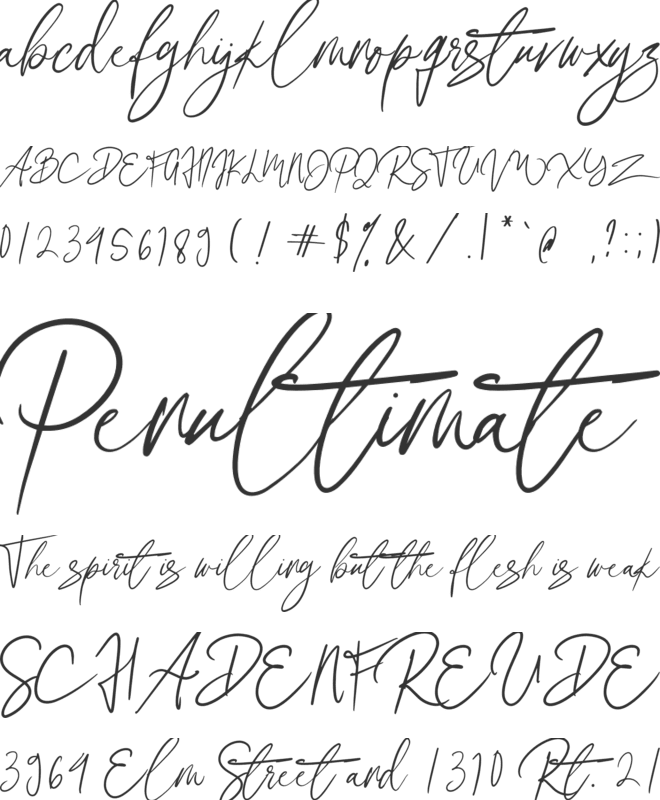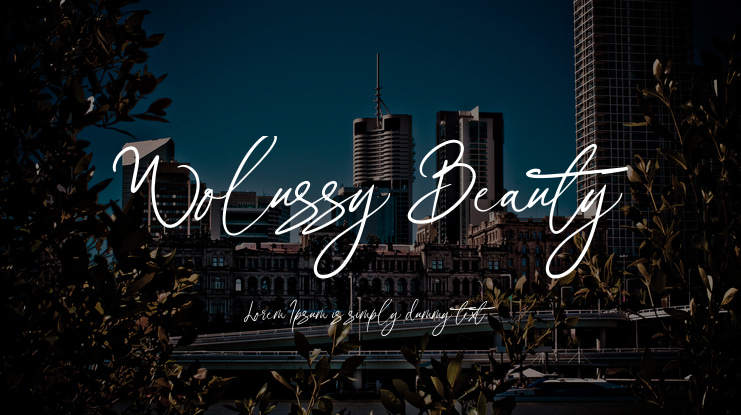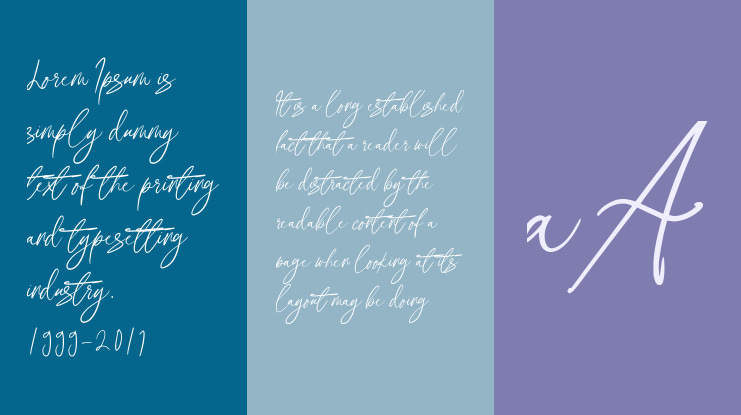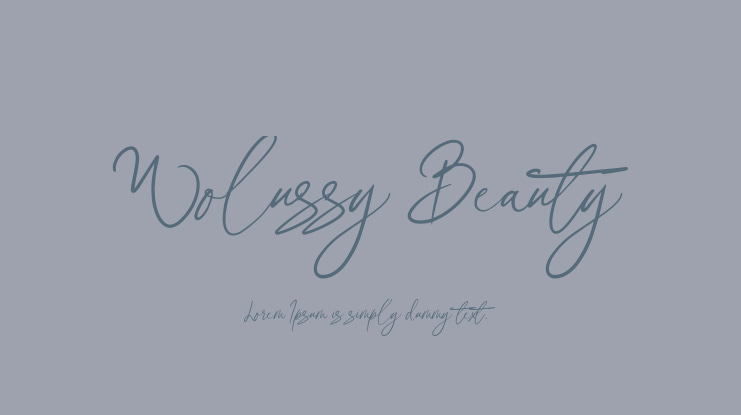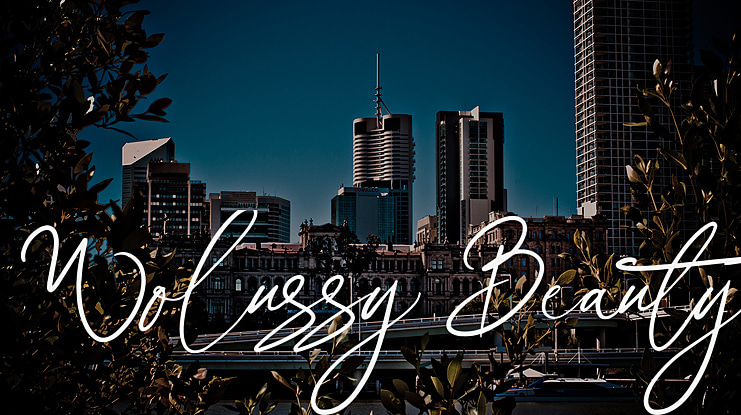
Wolussy Beauty Font
Laire Banyu Sandi Pawenang
Introducing Wolussy Beauty is a simple handwriting style, used for feminine female characters, simple but very elegant, with 17 ligatures to help the script lettering flow more naturally